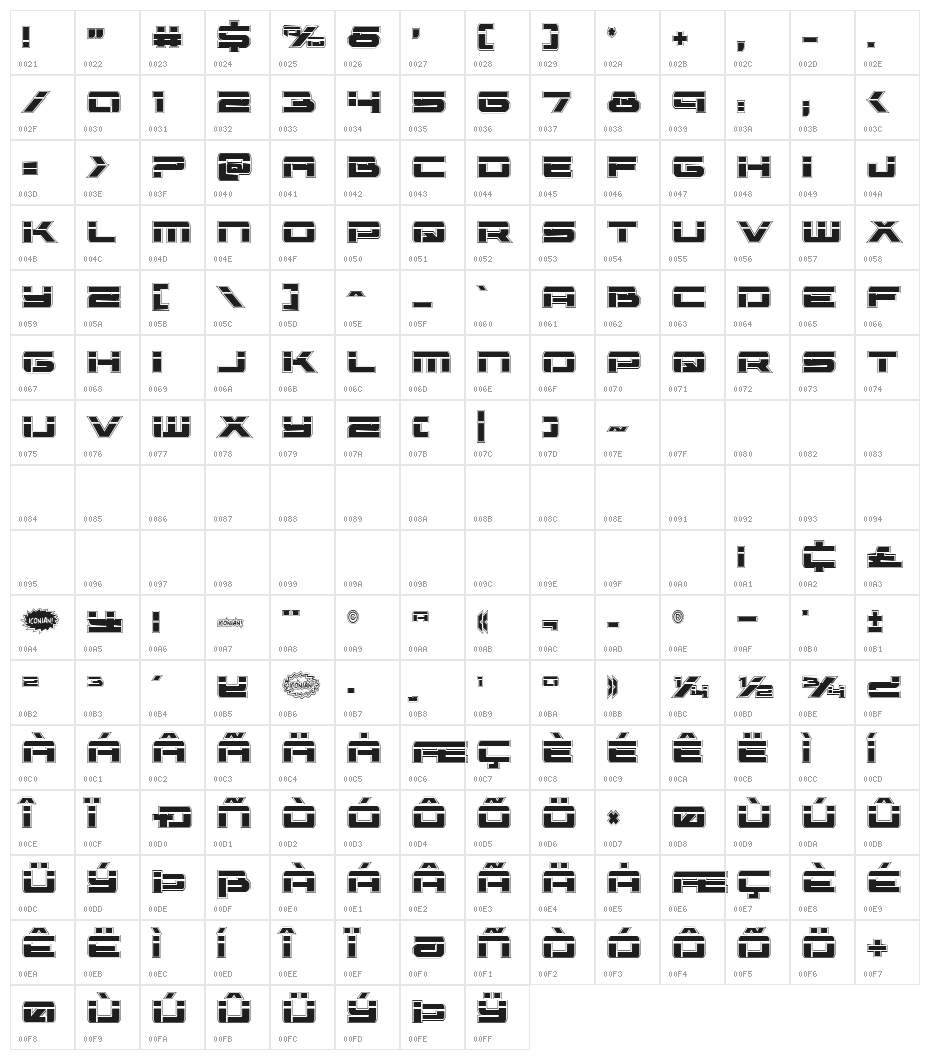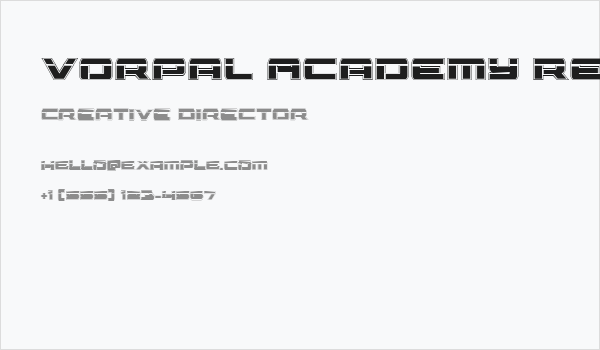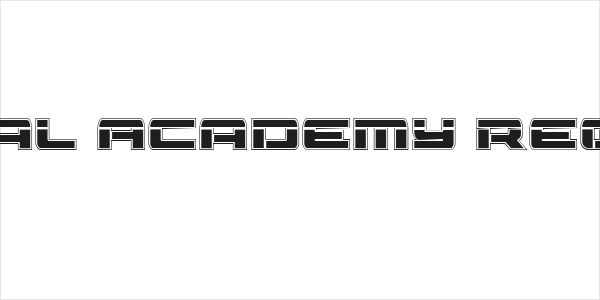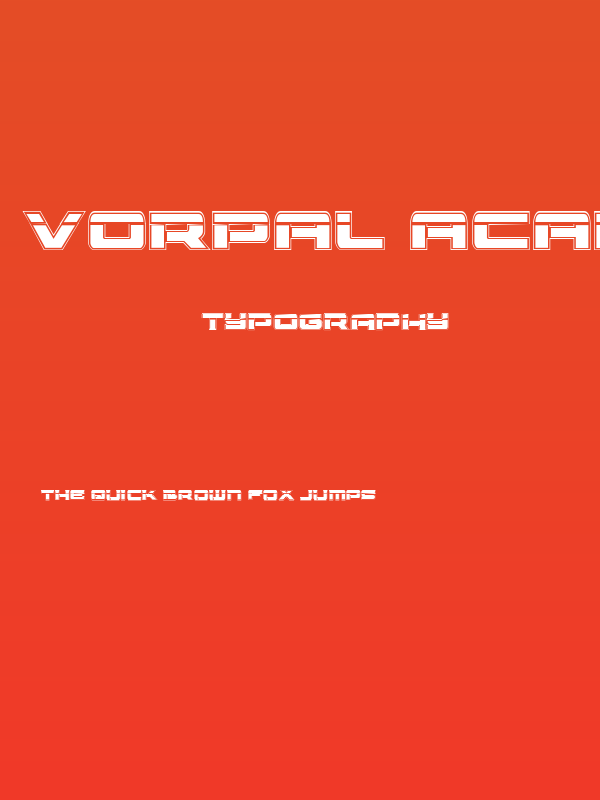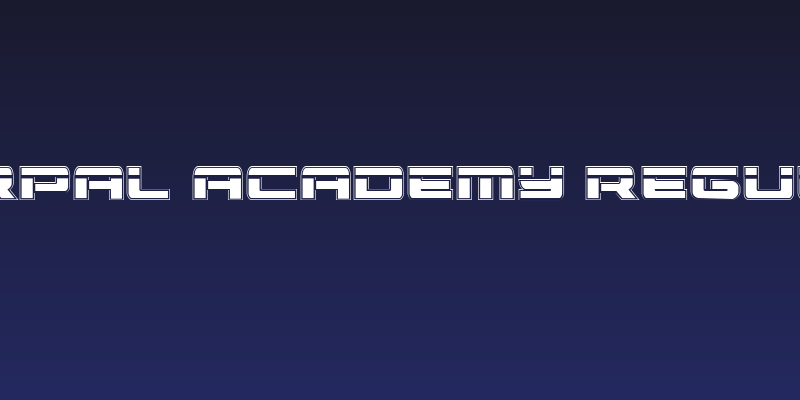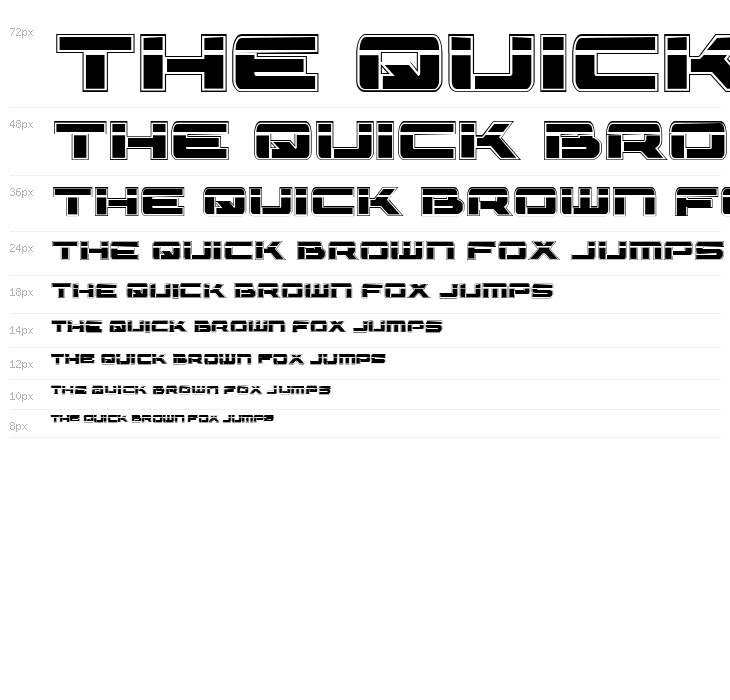
Vorpal Academy Regular Font
Vorpal Academy Regular Description
This font features a bold, futuristic design with a strong geometric influence. The characters are constructed with thick, block-like shapes that create a sense of solidity and strength. The use of negative space within the letters adds a dynamic, modern touch, making the font stand out. The uppercase and lowercase letters maintain a consistent style, with angular edges and a uniform stroke width. The numerals and special characters follow the same design principles, ensuring a cohesive look across all elements.
Overall StyleFuturistic
Proposed ProjectsIdeal for sci-fi themed projects, technology branding, video game titles, and modern posters.